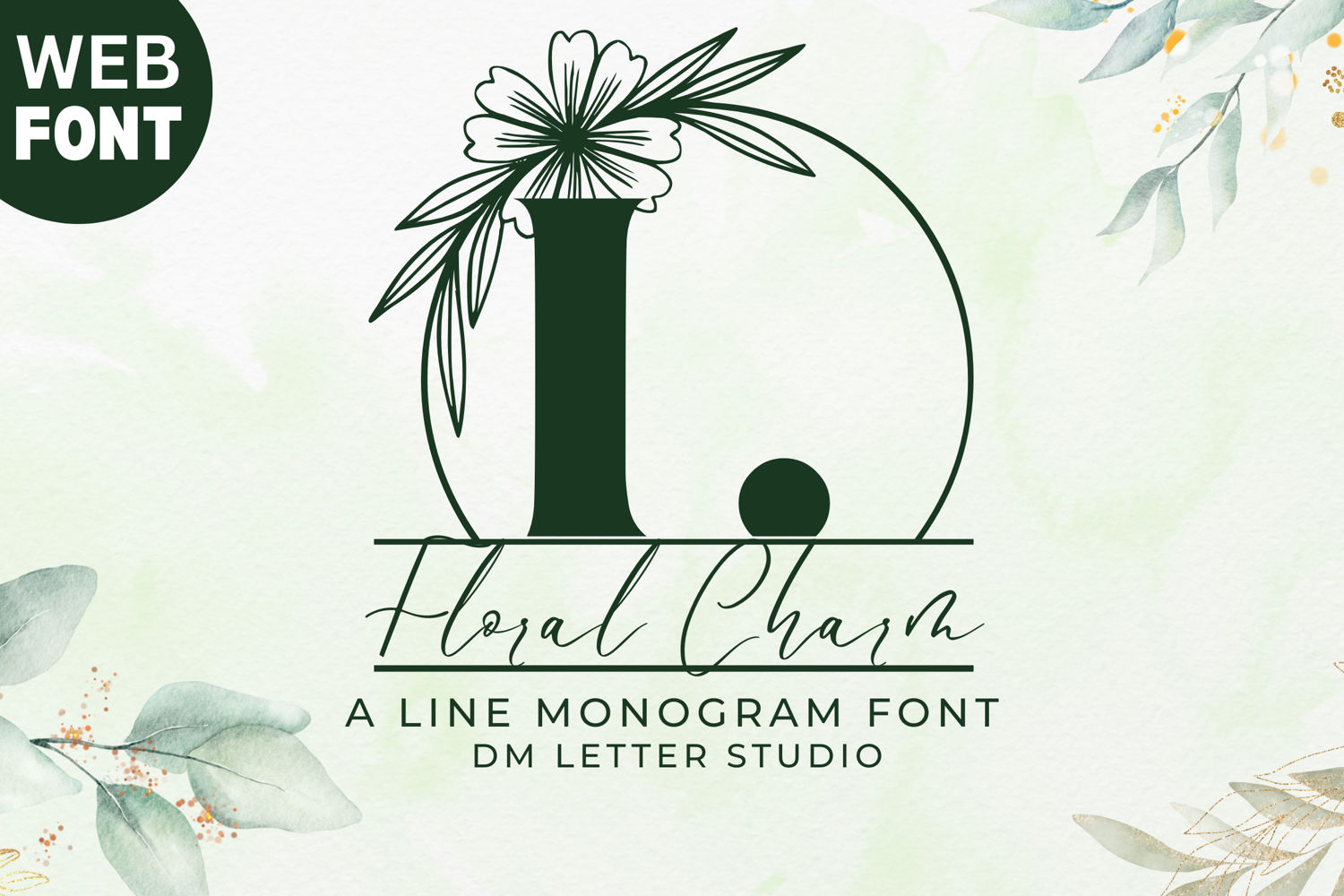
Floral Charm Line Monogram - Delicate Line Floral Monogram
Floral Charm Line Monogram – Delicate Line Art Floral Monogram Font
Floral Charm Line Monogram is an elegant serif monogram font featuring graceful line-art floral embellishments for a clean, sophisticated aesthetic. Each uppercase letter is paired with minimal yet expressive botanical line drawings, making this font perfect for modern weddings, custom logos, and high-end customized gifts. The minimalist floral elements offer timeless charm with a contemporary twist.
• Line Art Detailing: Beautifully sketched floral line art integrated into every uppercase letter.
• Clean Serif Structure: Balanced serif letterforms provide clarity and refinement.
• Perfect for Custom Designs: Ideal for modern monograms, branding, and stationery.
• Ideal For: Wedding logos, custom name signs, upscale product packaging, Cricut crafts, and floral-themed decor.